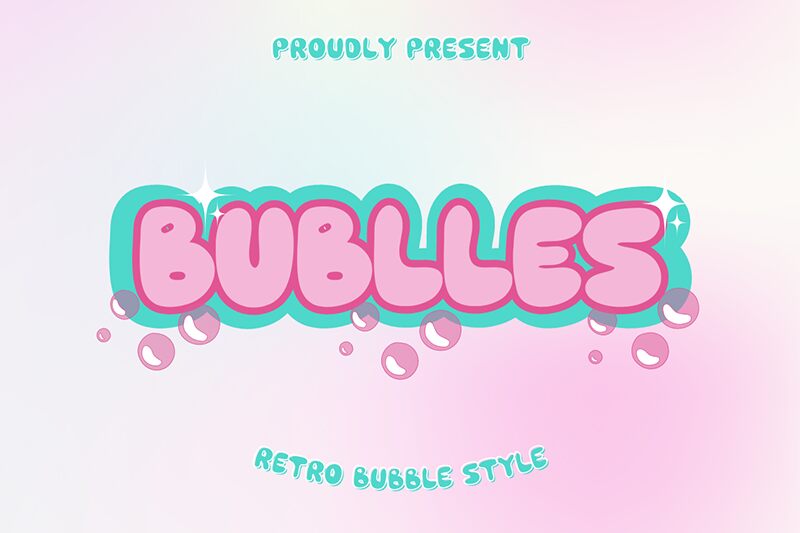
Bublles font by Muhammad Yafinuha is a cheerful font with a cartoonish design and casual essence. Bold and youthful, this display typeface presents chunky rounded shapes that remind us of designs from the 1970s. The nature of the characters is retro, but their use in modern applications will certainly lead to unique project outcomes.